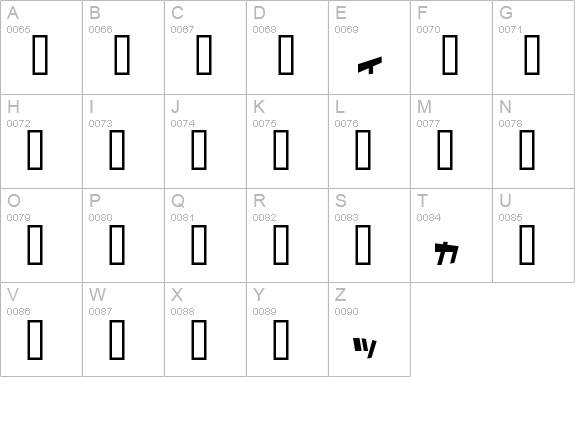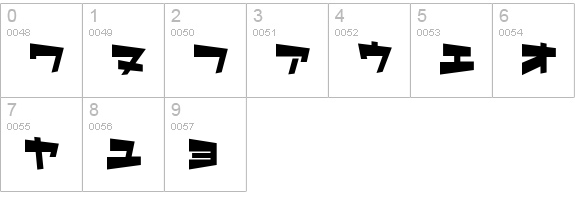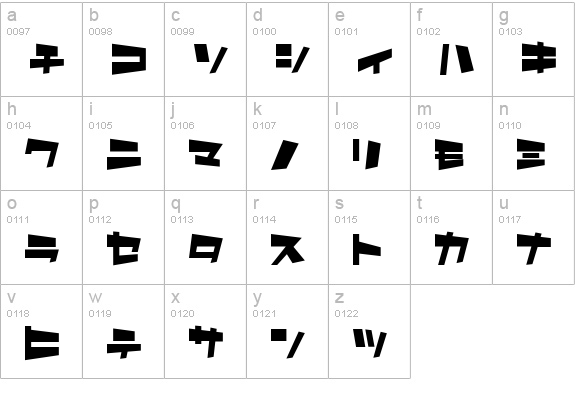
I2Asï¿¿ro twisï¿¿ Font Details
Introducing the captivating and innovative I2Asï¿¿ro twisï¿¿ font, a true gem in the realm of typography. This extraordinary typeface effortlessly combines elegance, uniqueness, and a touch of whimsy, making it the perfect choice for any creative project. With its delightful twists and turns, I2Asï¿¿ro twisï¿¿ font adds a dynamic and playful element that instantly captures attention. Crafted with meticulous attention to detail, this font showcases a harmonious balance between boldness and subtlety, allowing it to effortlessly adapt to various design styles and contexts. Its versatile nature makes it suitable for a wide range of projects, including logos, branding, headlines, packaging, invitations, and much more. One of the most remarkable features of I2Asï¿¿ro twisï¿¿ font is its ability to evoke a sense of free-spiritedness and creativity. Each character is carefully crafted to exude a sense of freedom and expressiveness, making it a go-to choice for designers looking to add a touch of personality to their work. But what makes I2Asï¿¿ro twisï¿¿ font even more enticing is the fact that it is freely available to download at FontsMarket.com. This means that you can easily access this remarkable typeface without any hassle or cost, allowing you to unleash your creativity without limitations. So, why settle for ordinary when you can embrace the extraordinary with I2Asï¿¿ro twisï¿¿ font? Download it now from FontsMarket.com and let your imagination run wild as you create stunning designs that leave a lasting impression.